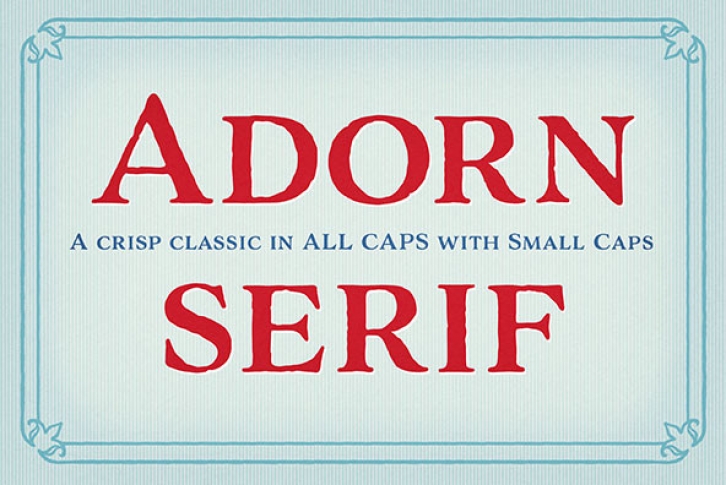
Adorn Serif is one of twenty fonts available in the Adorn family of seven display fonts, four script designs, monograms, ornaments, illustrations, banners, frames, and catchwords.
While each font in the carefully orchestrated Adorn collection can stand alone, the particular combination of contrasting scripts, display fonts, romans, and the multitude of stylized fonts in Adorn’s extraordinary toolkit makes each designer’s creation one of a kind. Buy the entire collection, 20 fonts for $99.
Adorn Serif breaks free from the slick and overly polished stock. Leaning toward a handmade authenticity, the letterforms were originally drawn by hand, and Worthington accentuates their irregularities and organic look in her design choices.